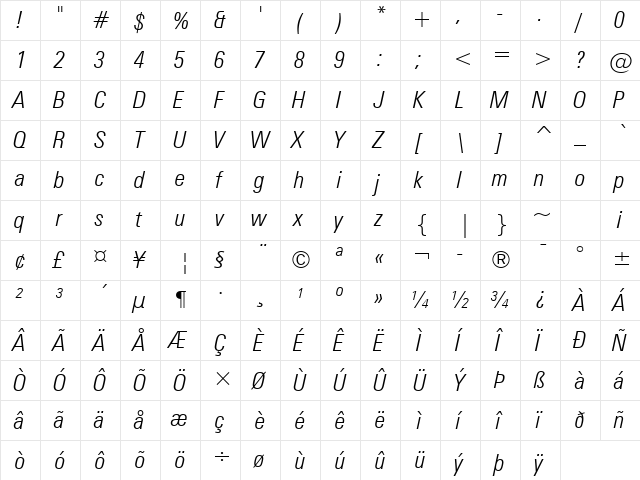
Zurich Light Italic Font Preview
Design Context for Zurich Typeface
Zurich offers clean, dependable letterforms without strong stylistic allegiance, making it a practical choice for designers who need flexibility. Its italic angle brings a sense of urgency and motion to the letterforms. The delicate stroke weight brings airiness and refinement to layouts.